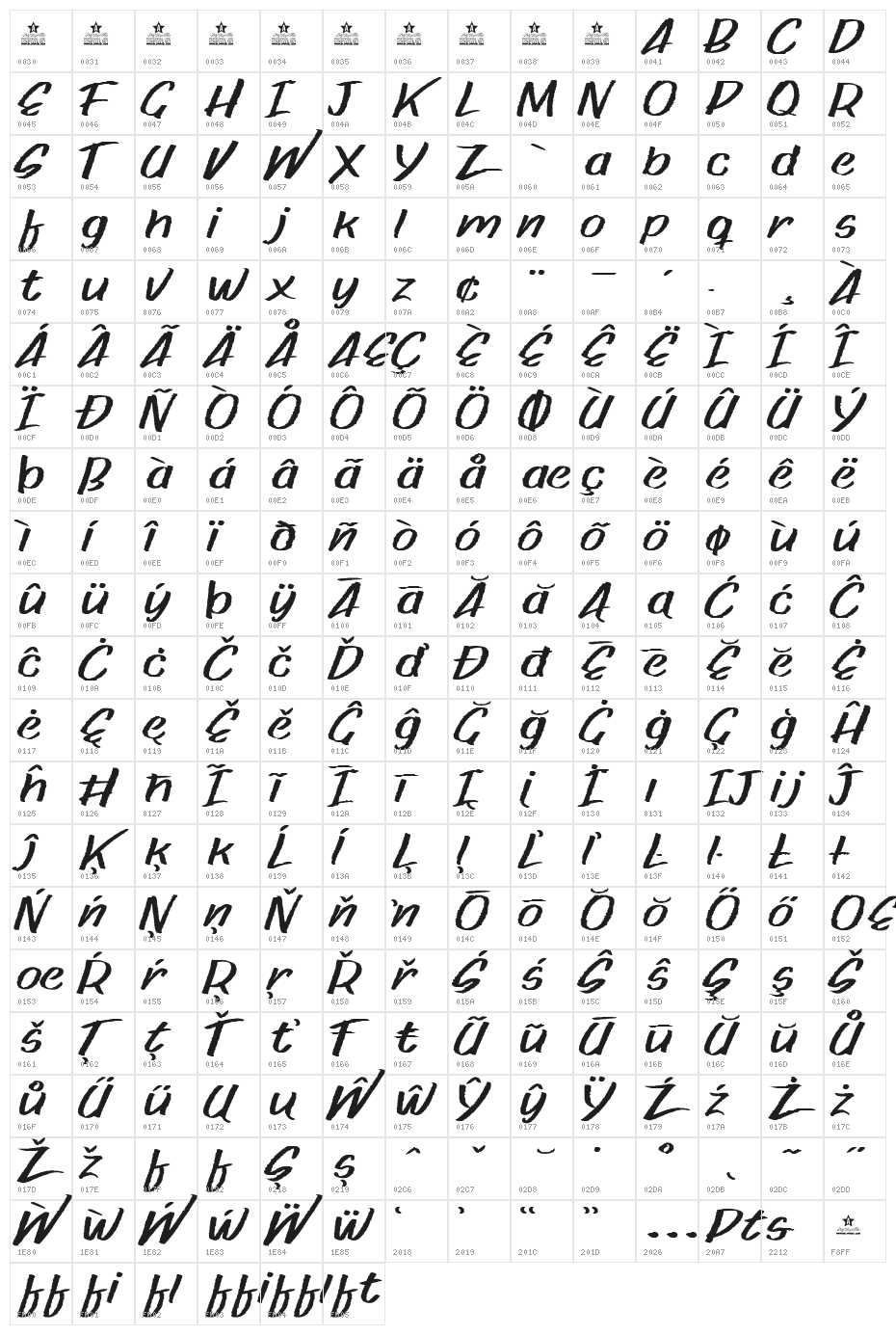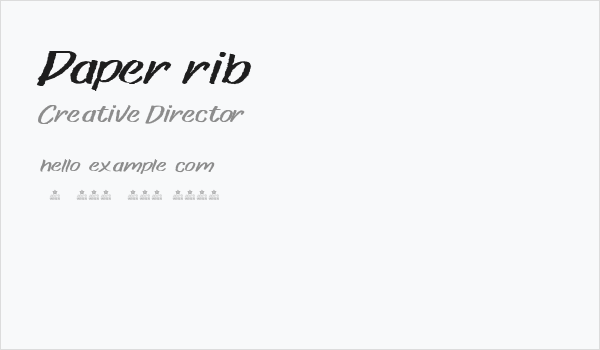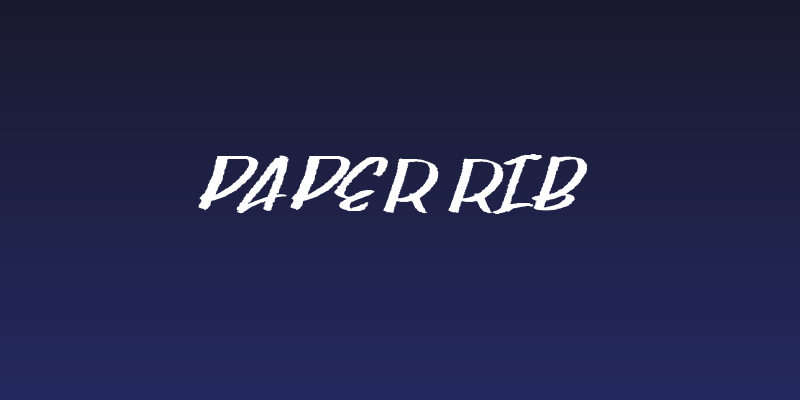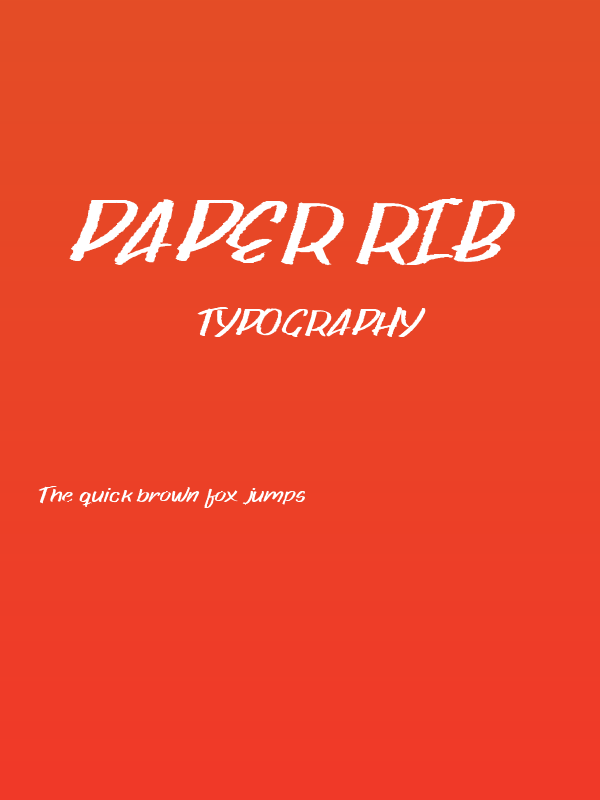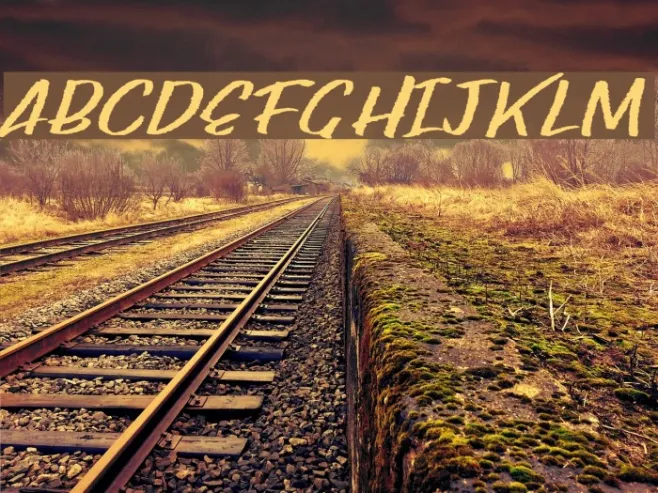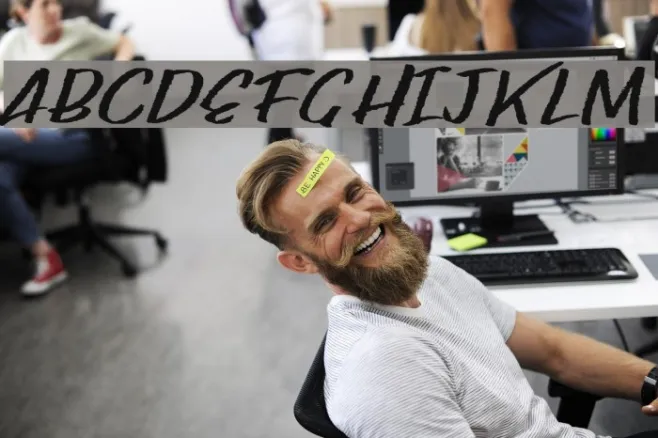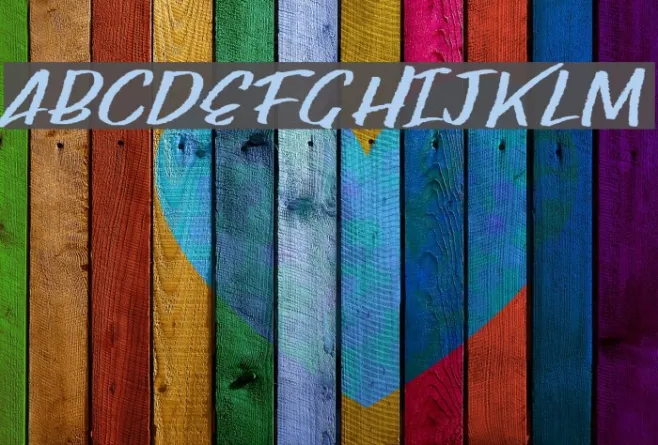
Paper rib Font
Paper rib Description
This font features a dynamic and expressive style, characterized by its bold, brush-like strokes that convey a sense of movement and energy. The letters are slightly slanted, adding to the fluidity and casual elegance of the design. The uppercase and lowercase letters maintain a consistent style, with rounded edges and varying stroke widths that create a lively and artistic appearance. The font's unique character is further enhanced by its slightly irregular baseline, giving it a handcrafted feel. This makes it suitable for projects that require a personal touch or an artistic flair.
| Proposed Projects | Ideal for branding, posters, invitations, and any project requiring a personal, artistic touch. |